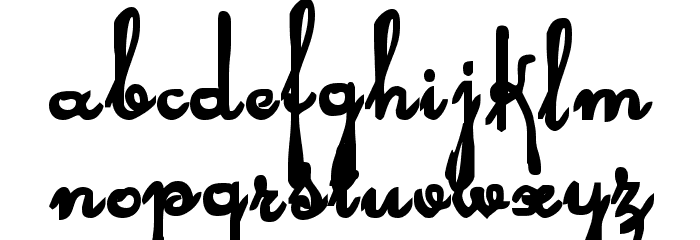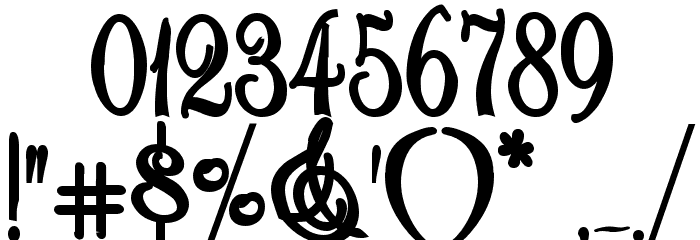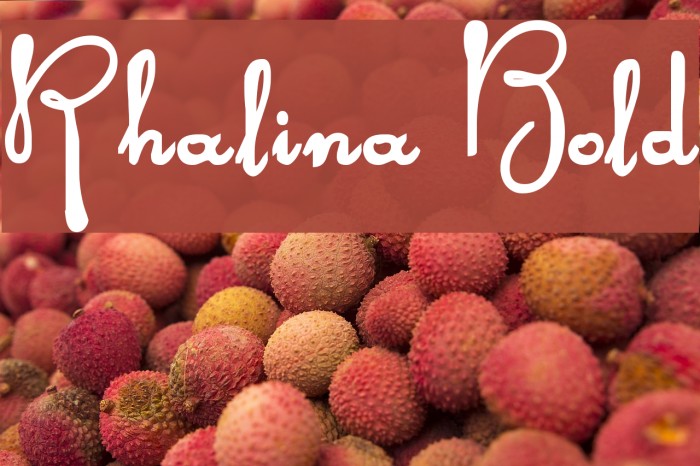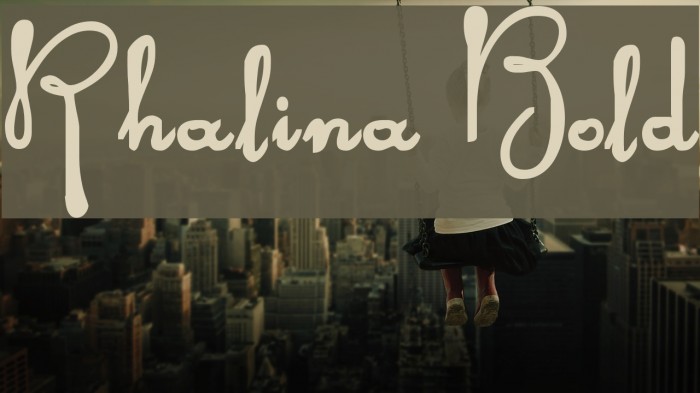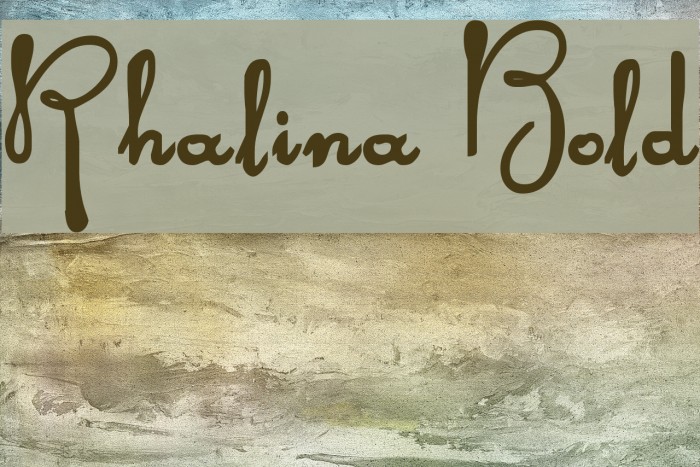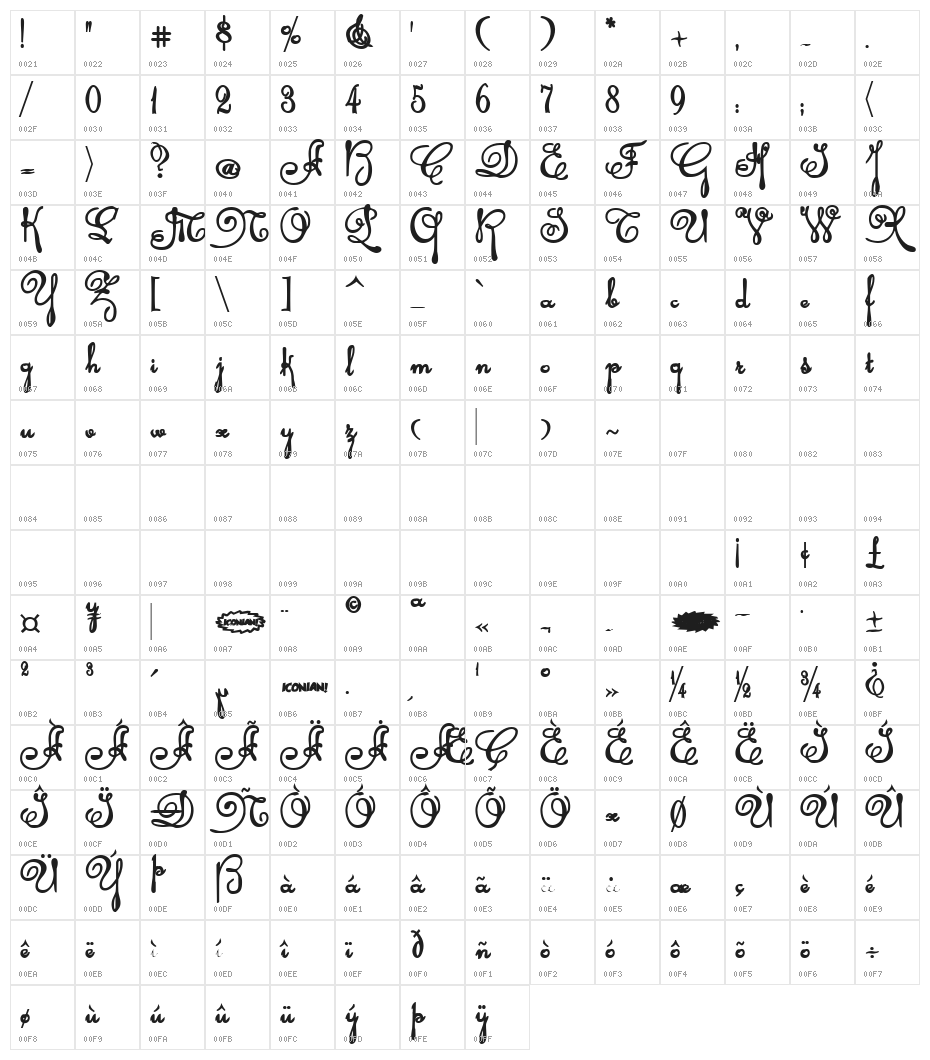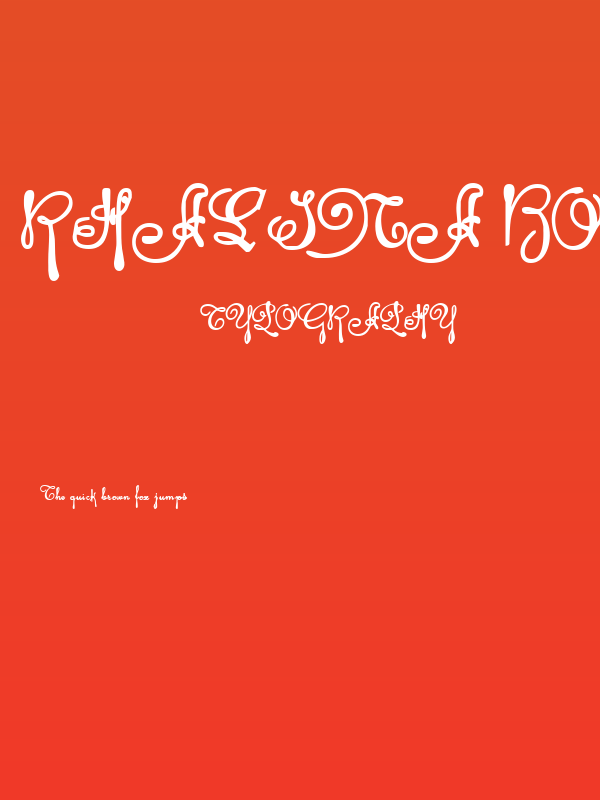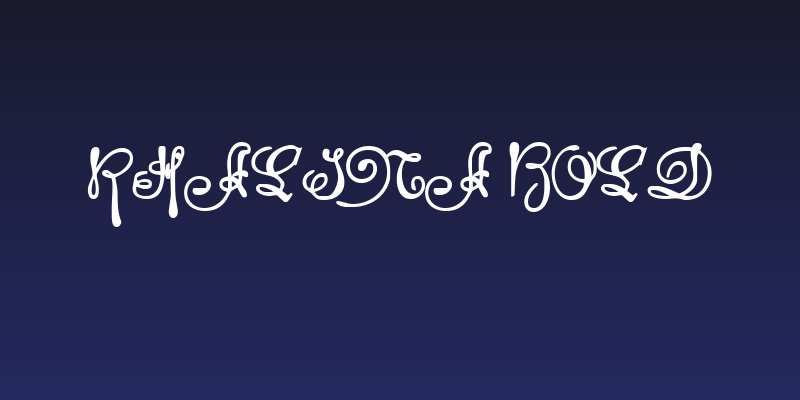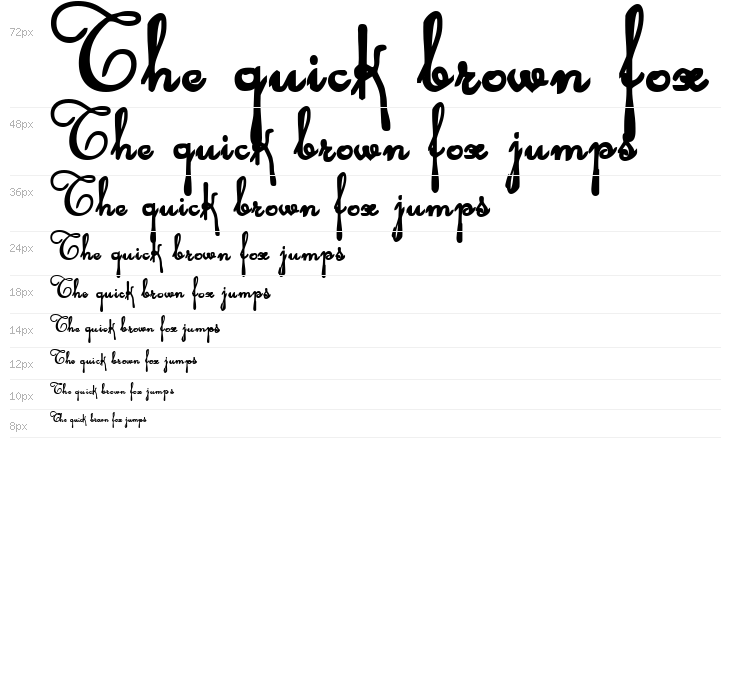
Rhalina Bold Font
This font features an ornate and decorative style with a strong emphasis on swirling, cursive elements. The uppercase letters are highly stylized with intricate loops and flourishes, giving them a whimsical and artistic appearance. The lowercase letters maintain a similar decorative flair, though they are slightly more restrained, allowing for better readability. The numerals are bold and consistent with the overall style, incorporating slight curves and embellishments. Special characters are equally ornate, fitting seamlessly with the font's aesthetic. This font is ideal for projects that require a touch of elegance and creativity.
An ornate, decorative font with swirling, cursive elements and intricate flourishes.
- Proposed Projects: Ideal for wedding invitations, greeting cards, artistic posters, and branding that requires a touch of elegance.
- Use Case: Logos, Invitations, Artistic Projects